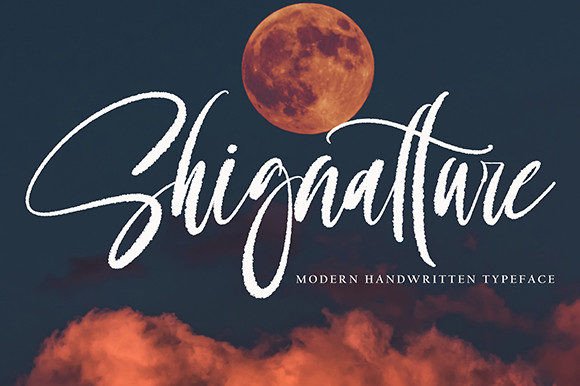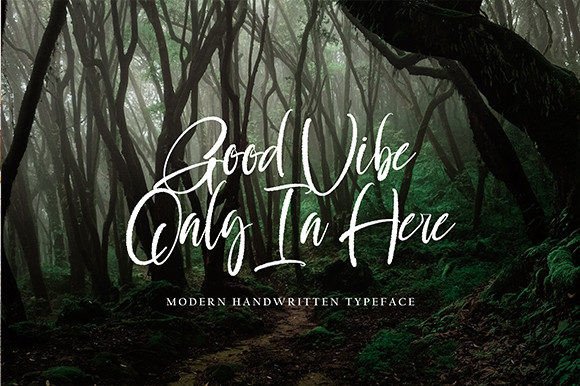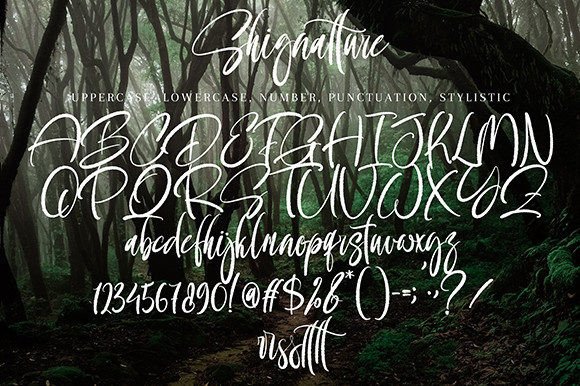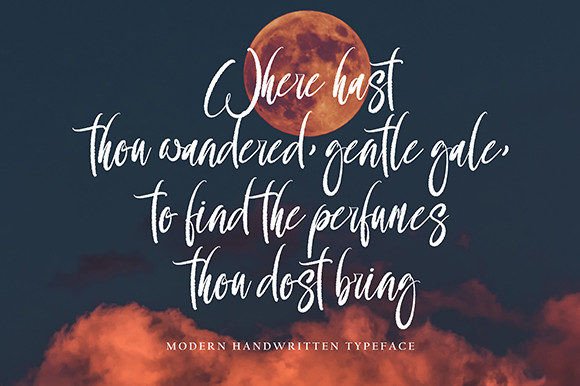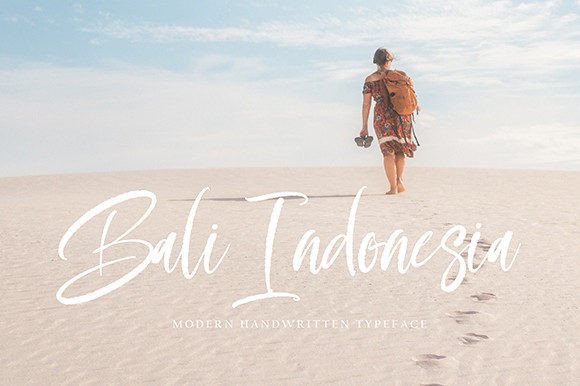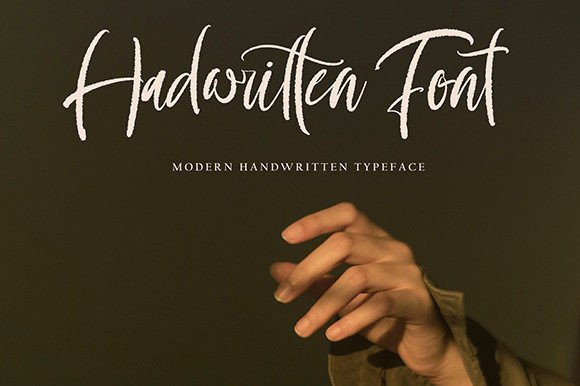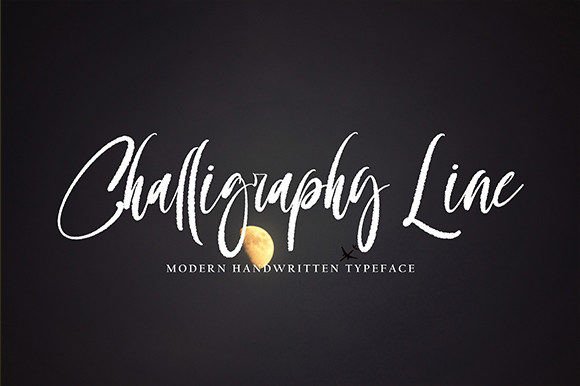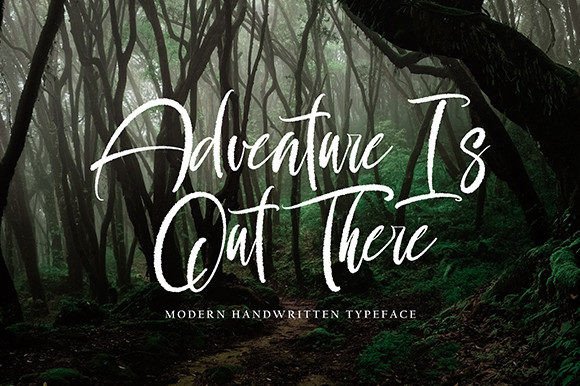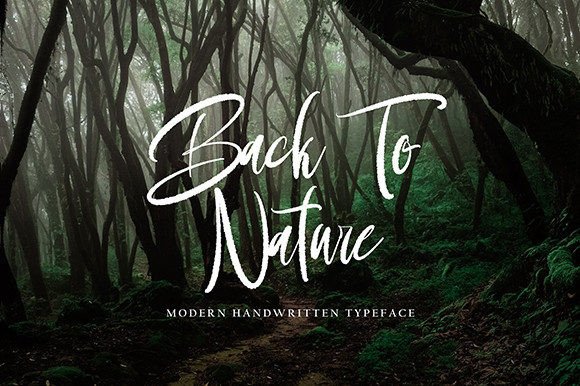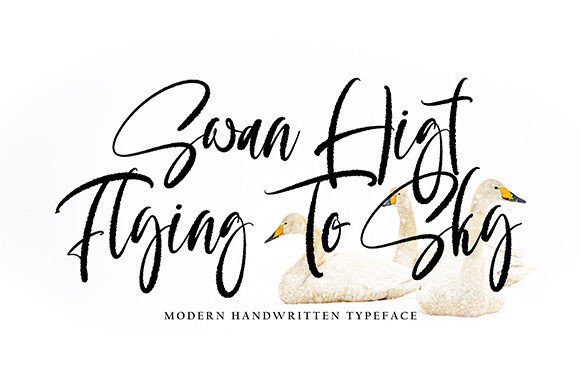
Shignatture Font
Shignatture Font Download – Lovely Timeless Handwritten Script
The Shignatture Font download is a handwritten script typeface designed with elegance and charm. With its timeless curves and detailed strokes, this font brings life and creativity to your projects. Because it is versatile, it works beautifully for logos, quotes, and personal branding.
Unique Style with Timeless Appeal
Shignatture Font combines modern flair with classic balance. As a result, it looks refined while still feeling approachable. In addition, its handwritten quality ensures that every letter feels personal and unique.
Perfect for Logos and Branding
Business logos, product packaging, and creative branding projects look stunning with this font. It creates an elegant yet approachable identity, helping your brand stand out. Therefore, it is an excellent choice for professional use.
Shignatture Font Download for Quotes and Invitations
The Shignatture Font download is also perfect for quotes, greeting cards, and invitations. It brings charm to your words, making them feel both stylish and heartfelt.
Posters and Creative Projects
From posters to digital artwork, this font adapts well across print and online platforms. In addition, its timeless style ensures your designs remain relevant and eye-catching.
Readability and Versatility
Some handwritten fonts may look elegant but lack readability. However, Shignatture maintains balance, ensuring your text is both stylish and clear. This makes it suitable for headlines and supporting text alike.
Why Add This Font to Your Collection?
The ShignattureFont download is elegant, versatile, and simple to use. In other words, it fits both personal creative projects and professional branding. Finally, it is a timeless handwritten font that gives personality and charm to every design.